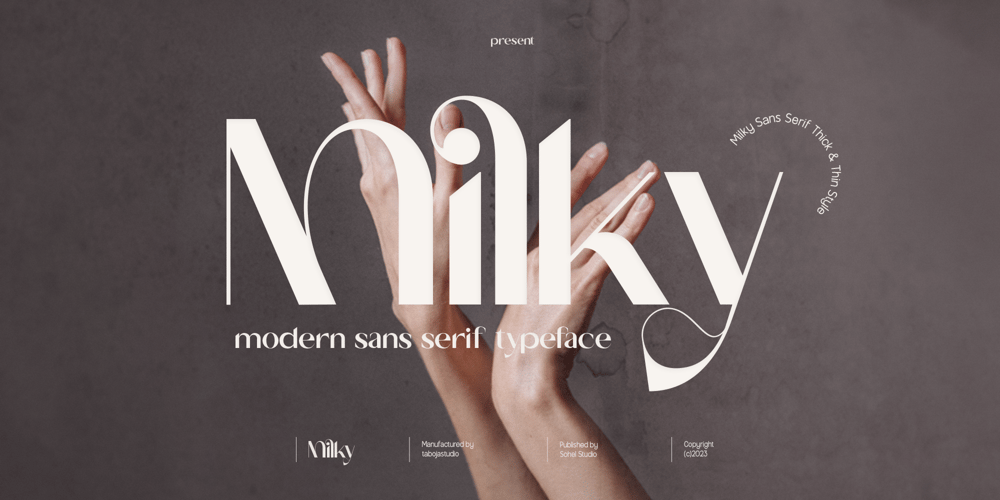
Milky Modern Sans Serif Font Family was designed by Yusilo Oktaprima Ardani and published by Taboja Studio. Milky Modern Sans Serif contains 1 styles and family package options. Introducing Milky Sans Serif Display Font, a captivating fusion of bold and thin elements in every letterform. This versatile typeface is meticulously crafted to bring a perfect balance of strength and finesse to your designs.With a harmonious blend of thick and thin strokes, this font delivers a modern and dynamic aesthetic that effortlessly suits a variety of design applications. Its sleek lines and contemporary feel make it an ideal choice for branding, headlines, and eye-catching displays, ensuring your message stands out with confidence.Milky Font Features: Regular Uppercase And Lowercase Alternates And Ligatures Numerals & Punctuation Accented characters Multilingual Support Unicode PUA Encoded We highly recommend using a program that supports OpenType features and Glyphs panels such as Adobe Illustrator, Adobe Photoshop CC, Adobe Indesign, or CorelDraw, so you can see and access all Glyph variations.While using this product, if you encounter any problem or spot something we may have missed, please don’t hesitate to drop us a message. We’d love to hear your feedbacks in order to further fine-tune our products.Stay creative and have a wonderful day.